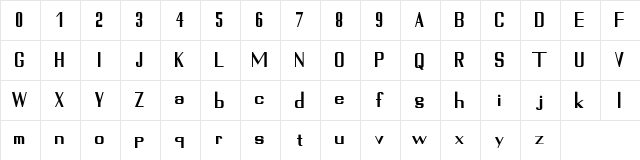
Sundarbans Regular
| Foundry | Mohammad Arafin (Duke) |
| Designer | Mohammad Arafin (Duke) |
Design Context for Sundarbans Typeface
Sundarbans is a composed and adaptable typeface that performs quietly and consistently across a wide range of design contexts.